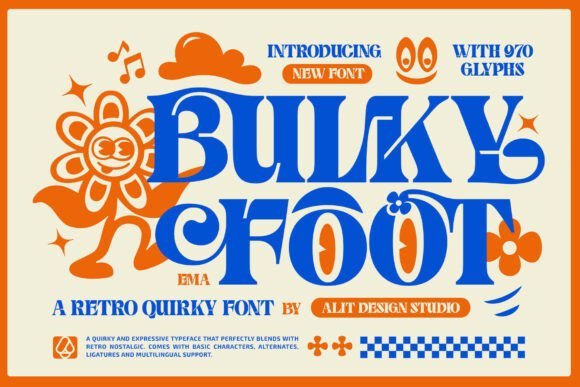
Step into the Groovy World of Bulky Foot Font
Remember that moment when you stumbled upon a vintage poster and felt an instant rush of creativity? Maybe it was a 70s-inspired concert flyer or a retro-themed cafe sign that caught your eye. For designers, those moments of inspiration are what drive us to create something truly unique. And that’s exactly what Alit Design Studio aimed to achieve with the Bulky Foot Font – a quirky, expressive typeface that embodies the spirit of retro playfulness with a modern edge.
Bulky Foot Font is designed to make a statement, with its bold, bouncy, and personality-packed aesthetic. Whether you’re designing for a high-energy nightclub or a whimsical children’s brand, this font adapts to bring a sense of joy and movement to your layout. With 970 glyphs at your disposal, you have the power to unleash limitless creativity and take your designs to the next level.
Bulky Foot Font Key Features
- Unique Characteristic: Bulky Foot Font features a distinctive, chunky design with rounded edges, giving it a friendly and approachable feel, perfect for use in children’s books, advertising, and other creative projects.
- Language Support: The font supports a wide range of languages, including Latin, Greek, and Cyrillic scripts, making it a versatile choice for global design applications.
- Font Pairing: Bulky Foot Font pairs well with sans-serif fonts like Open Sans and Lato, creating a balanced and visually appealing design.
Bulky Foot Font Review
At first glance, Bulky Foot font seems like a unique addition to any design project. ✨ The bold, chunky letters are sure to grab attention and add a touch of personality to any text. I particularly appreciate the variations in weight which allow for a range of styles and moods. ✨
However, I do have a few concerns about the limitations of this font. ⚠️ For one, the limited character set might make it difficult to use for longer texts or in situations where a wide range of symbols are required. Additionally, the open counters can sometimes make the text appear cluttered or overwhelming.
Overall, I think Bulky Foot font is a fun and quirky choice for certain projects, but it’s not without its limitations. ⚠️ While it’s perfect for headings or short blocks of text, it might not be the best choice for longer pieces of writing or more formal designs. With some careful consideration of the font’s strengths and weaknesses, it can be a great addition to a designer’s toolkit.
Here are a few key points to consider when working with Bulky Foot font:
- Perfect for: headings, short blocks of text, or projects where a bold, eye-catching font is desired.
- Not ideal for: longer pieces of writing, formal designs, or situations where a wide range of symbols are required.
- Key features: bold, chunky letters; variations in weight; limited character set.
Tips for Getting the Most Out of Bulky Foot Font
Use Bulky Foot Font for headings and titles to create a bold and eye-catching effect.
Pair Bulky Foot Font with a clean and simple font for body text to create a visually appealing contrast.
Experiment with different font sizes and styles to create a unique and dynamic visual effect.
Bulky Foot Font is ideal for use in posters, flyers, and other promotional materials where a bold and eye-catching effect is desired.
It is also suitable for use in branding and logo design, particularly for companies that want to create a strong and memorable visual identity.